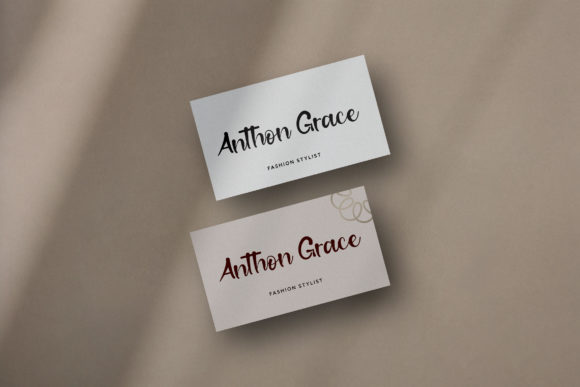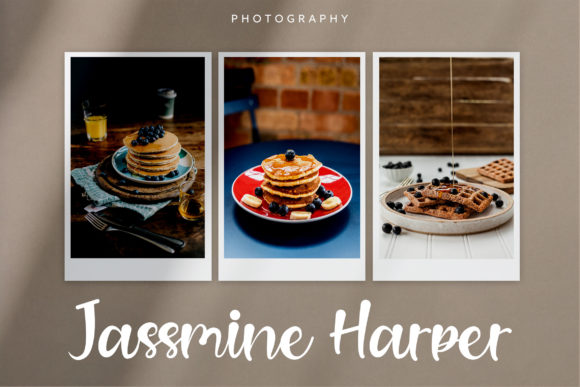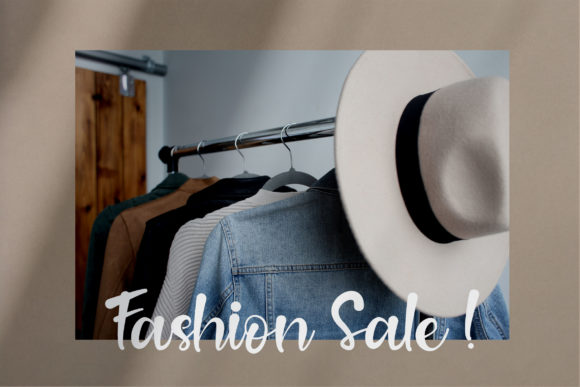
Introduction to Lemillion Font
As you sit in front of your computer, staring at a blank canvas, and trying to find the perfect font to match your creative idea, you often wish for a magic button that can instantly transform your design into a stunning work of art. While that magic button may not exist, there’s a font that comes close – the Lemillion Font. This adorable, casual handwritten font has captured the hearts of designers worldwide with its friendly feel and versatility.
Whether you’re working on a creative project, designing a logo, or simply looking for a beautiful font to use on your Instagram posts, the Lemillion Font is an excellent choice. With its gorgeous swashes and ligatures, this script font can elevate any design to the next level. Plus, its transparent background and high-quality design make it a valuable resource for designers looking to create unique and eye-catching designs.
Key Features of Lemillion Font
- Unique, elegant style that adds a touch of sophistication to any design, from logos to digital art
Honest Review: Lemillion Font
As a designer, I’m always on the lookout for high-quality fonts that can elevate my creative projects. Recently, I came across the Lemillion Font, which I’m excited to share my thoughts on.
- Unique and elegant design that’s perfect for luxury branding
- High-quality glyphs and letterforms that render well on both screen and print
The Lemillion Font is a solid addition to any design resource library. Its sophisticated design and high-quality glyphs make it perfect for luxury branding, packaging, and editorial projects.
- Some users may find the font too ornate or busy for certain design applications
- The font family is relatively small, with only a few weights and styles available
Overall, I’m impressed with the Lemillion Font. While it may not be suitable for every design project, its unique design and high-quality glyphs make it a valuable resource for designers working on luxury or high-end creative projects.
To get the most out of the Lemillion Font, use it with a transparent background to create stunning visual effects. Experiment with different font sizes, colors, and styles to add depth and visual interest to your design.
The Lemillion Font is ideal for use in creative projects such as logo design, branding, and typography-based art. Its high-quality design and transparent background make it perfect for creating eye-catching visuals.
Comparison to Lemillion Font: Great Vibes Font has a more refined and polished look, making it suitable for corporate or business designs, whereas Lemillion Font has a more casual and playful vibe.